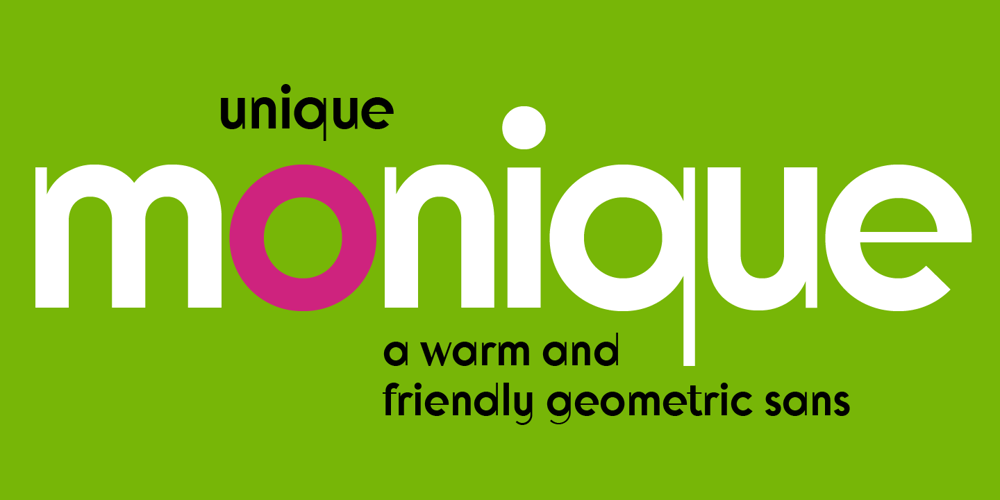
Monique Sans BF
Monique Sans BF font
Monique Sans BF Font Family was designed by John Bomparte and published by Bomparte’s Fonts. Monique Sans BF contains 1 styles and family package options. Monique Sans features an unconventional thick/thin stroke weight pattern, that creates a fresh, unique appearance throughout. Aside from being a superb choice for a diverse variety of applications in headline and display, Monique Sans is remarkably legible and distinctive in short passages of mid-range text (10 pt to 14 pt). Wherever your design project requires a stylish, sophisticated look, Monique Sans is sure to shine!